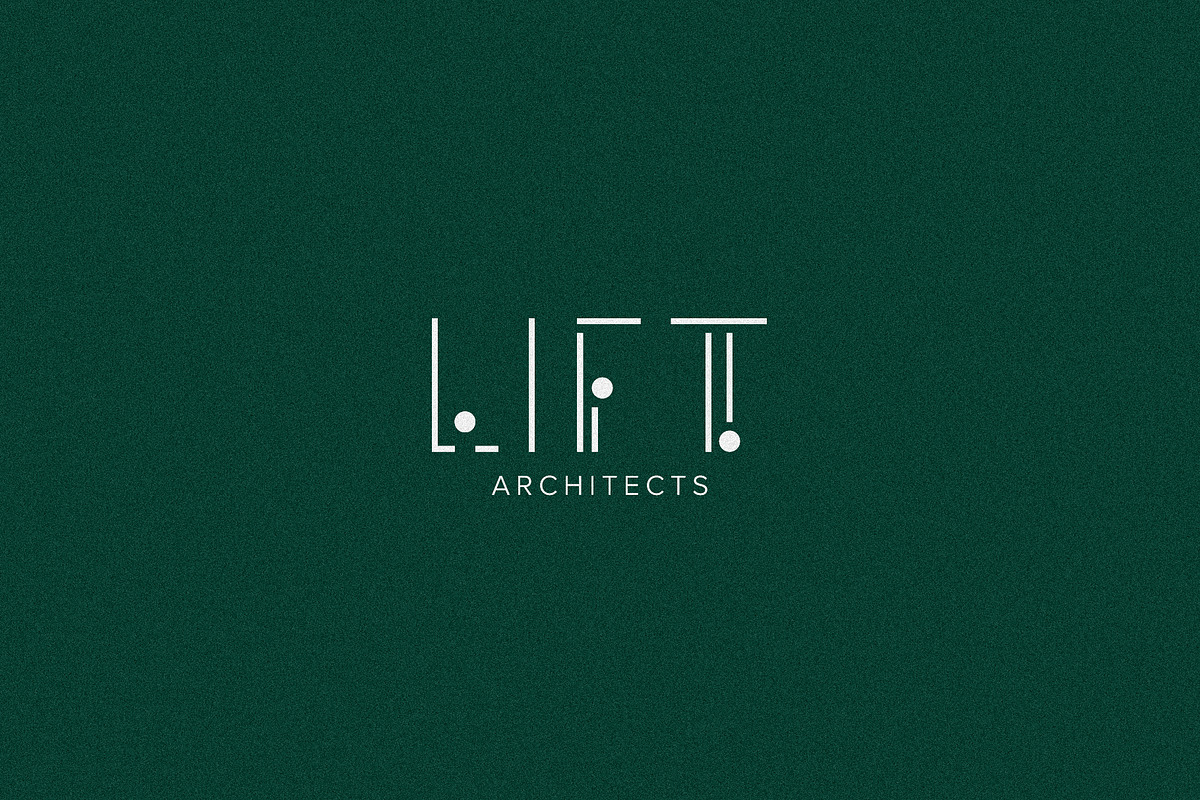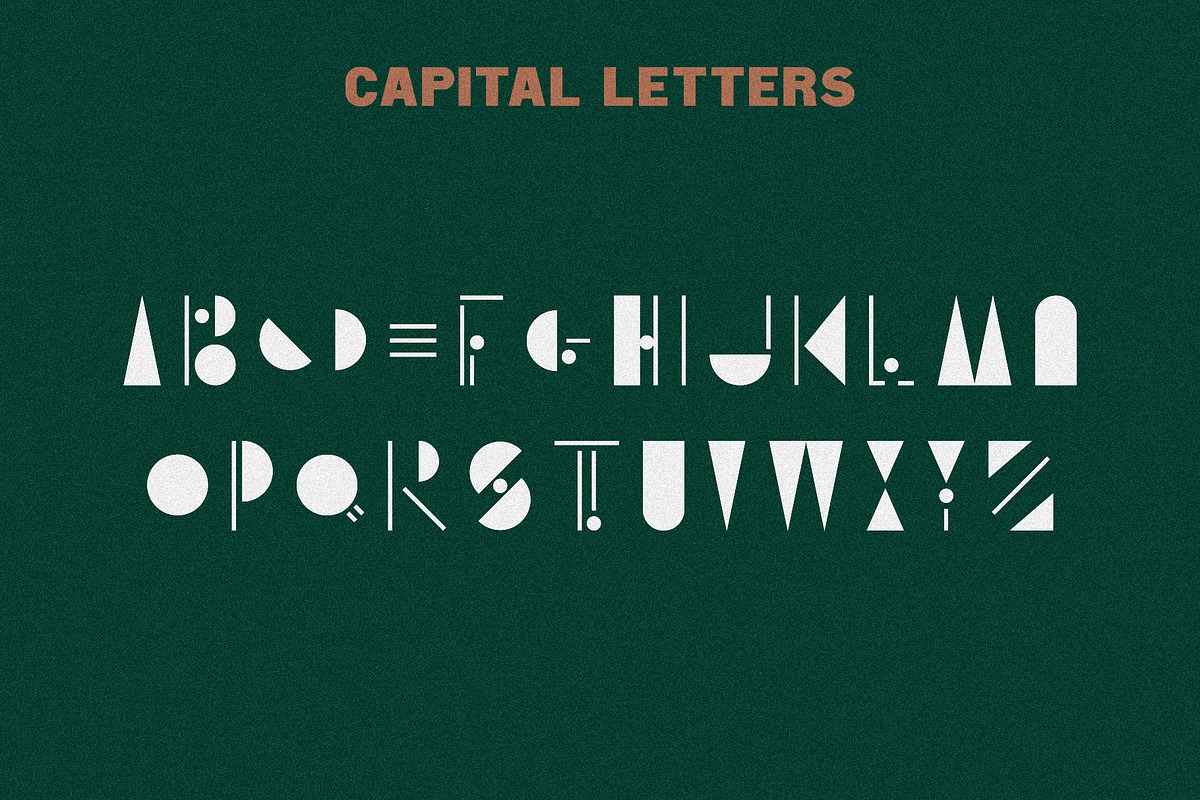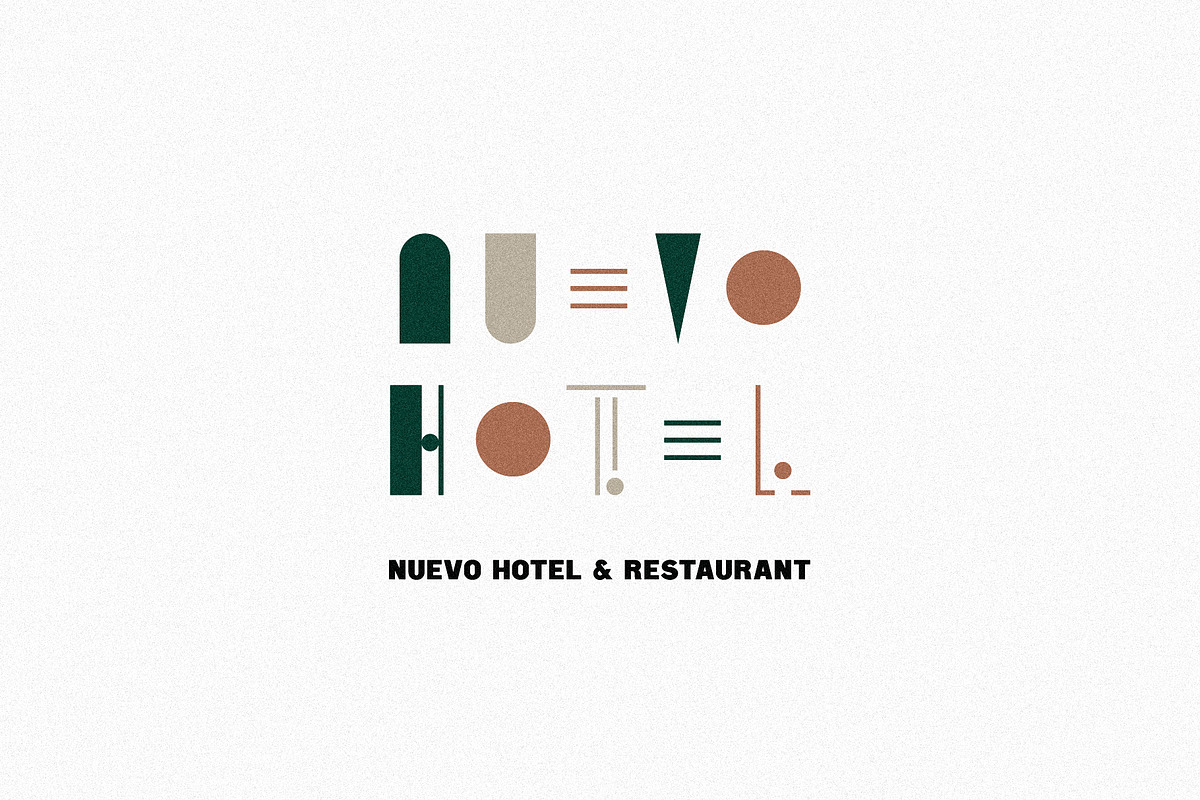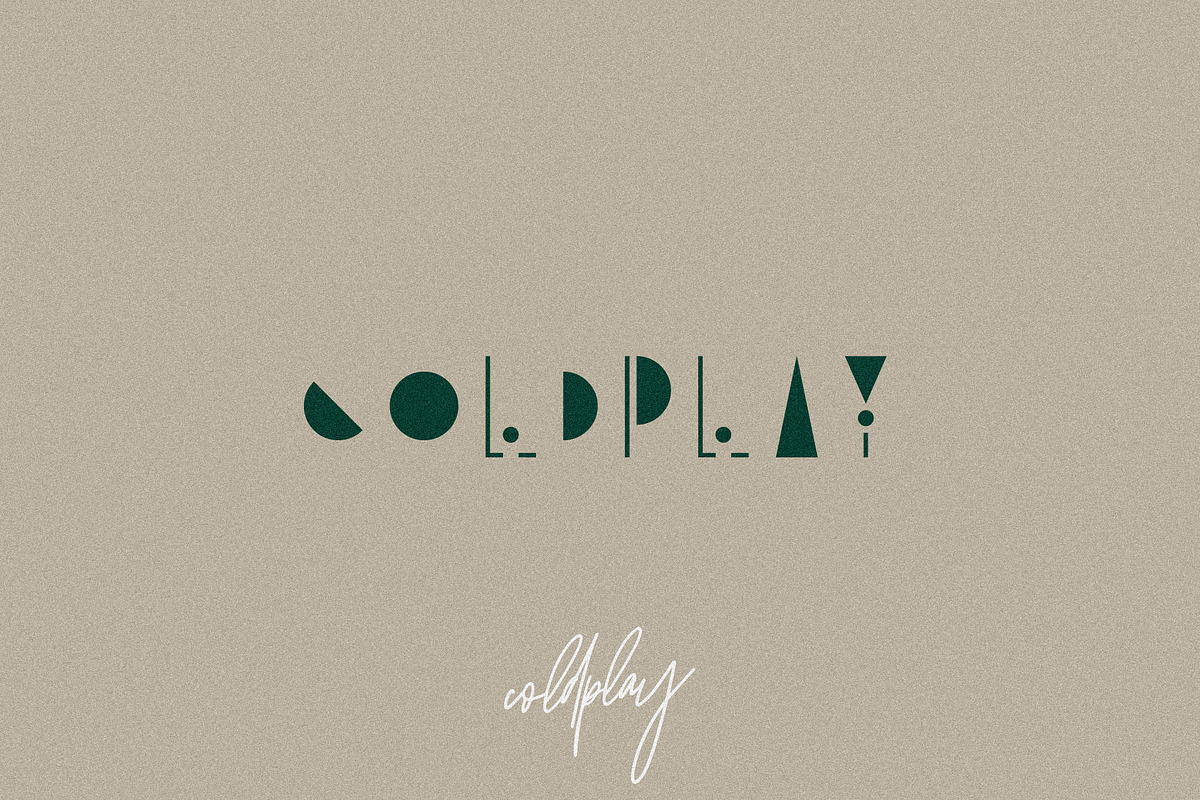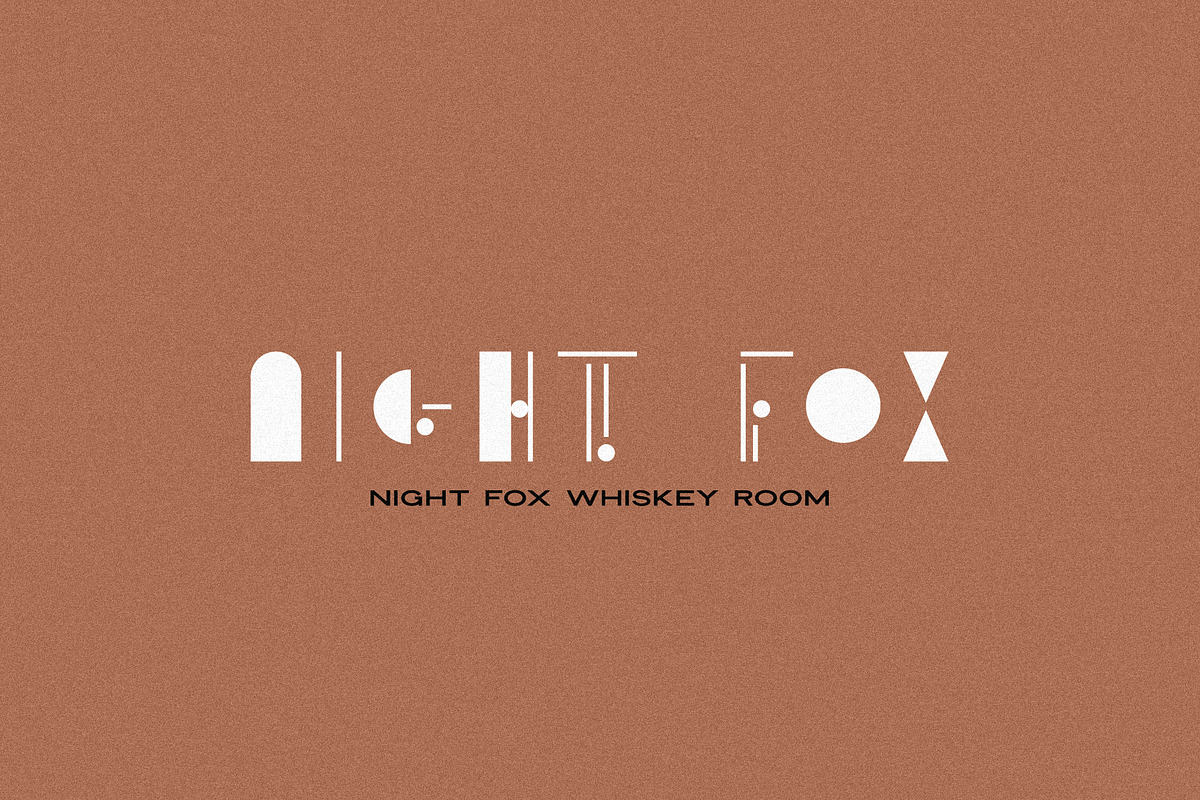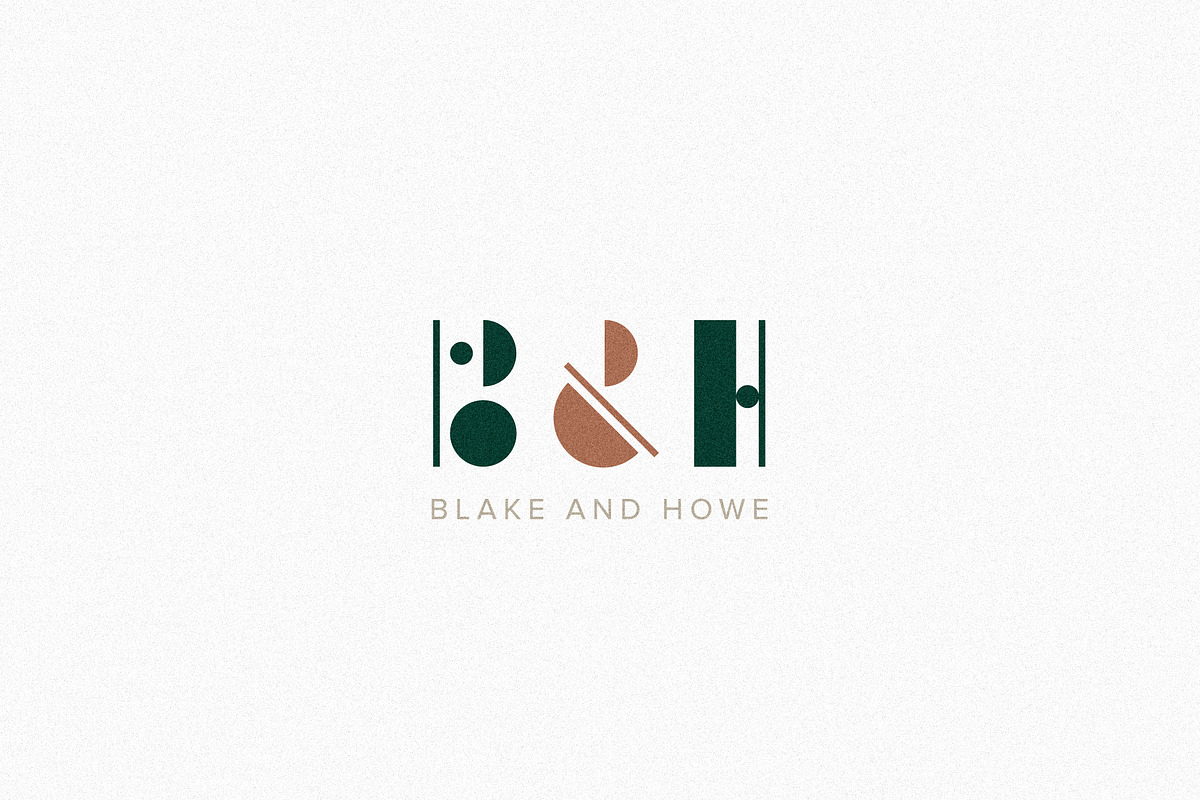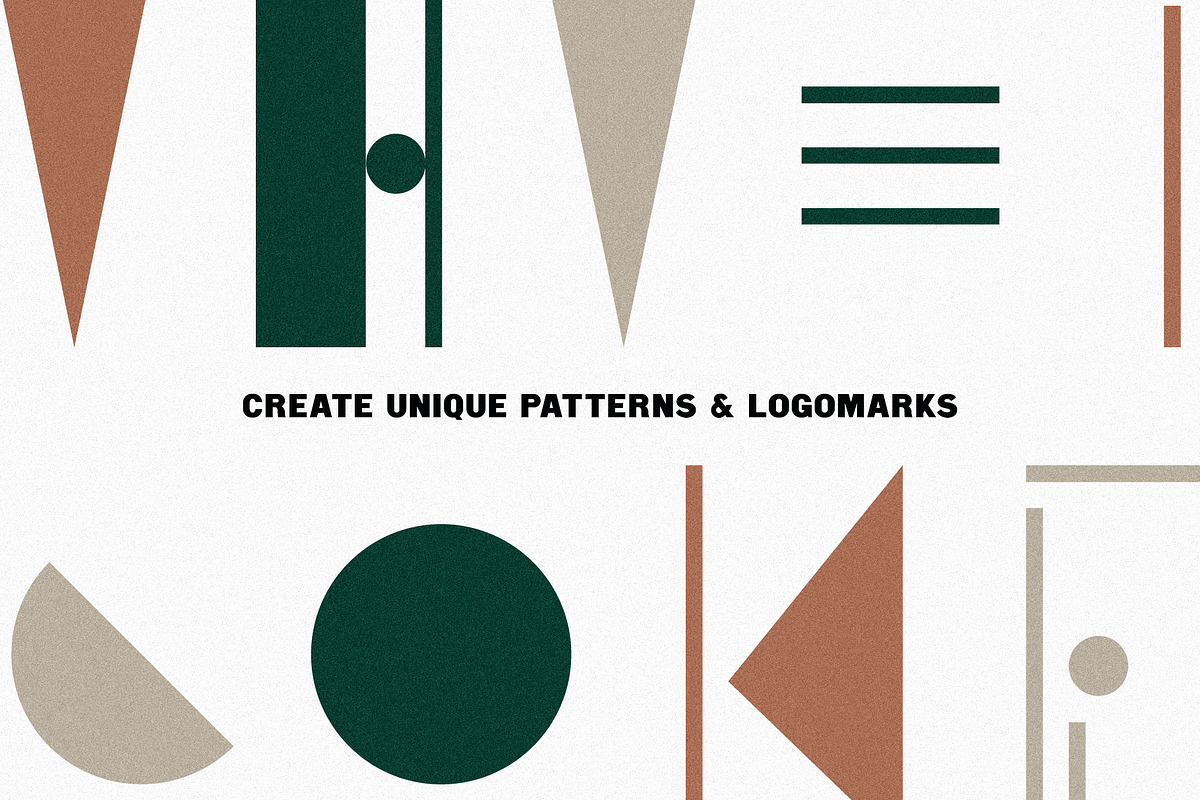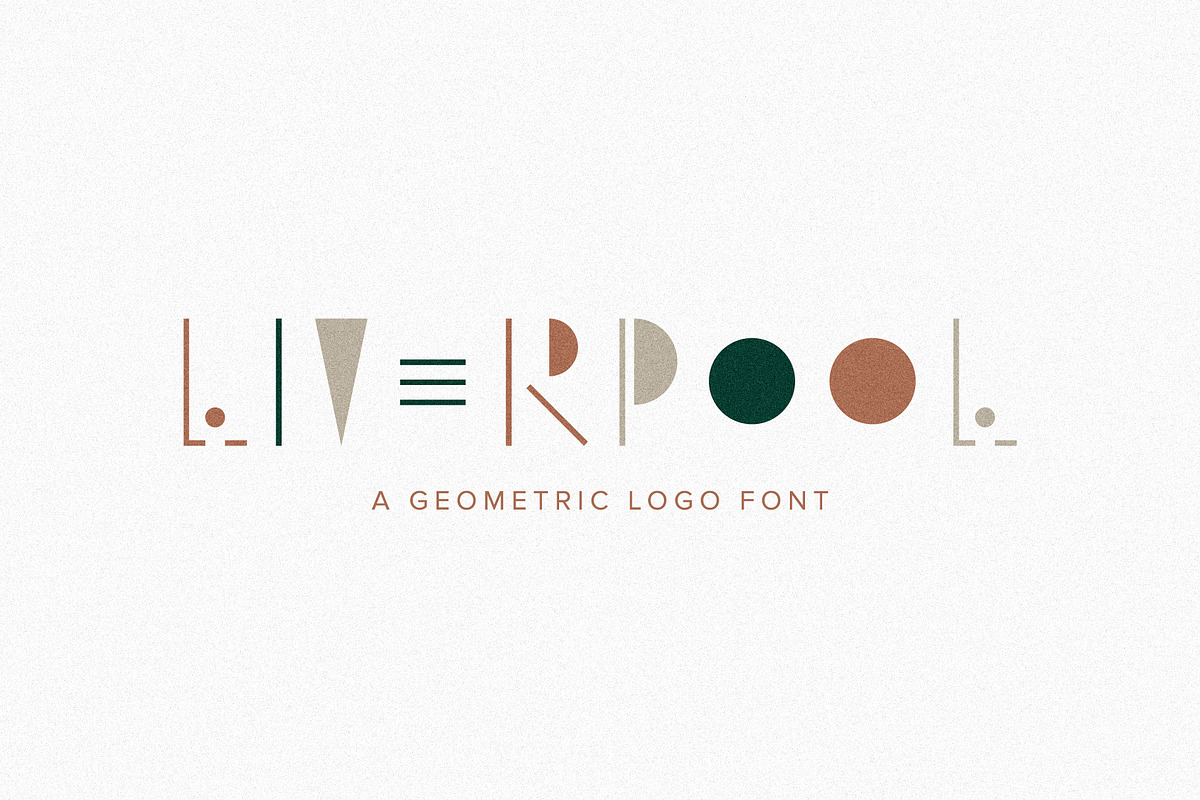
Liverpool | A Geometric Logo Font
Liverpool is a unique and minimal geometric display font that was inspired by beautiful minimalist abstract paintings. It's definitely limited in its uses, but it was such a blast to make, and is super fun to use too!
Liverpool is best used for logos and branding – that's it! It's too busy for body text and, depending on the use, likely too complex for web headers.
I love alternating the colors with each letter, but it also looks stellar in one solid color (see images 3, 4, and 6).
For the best alignment, set your kerning to "Optical" in your character panel.